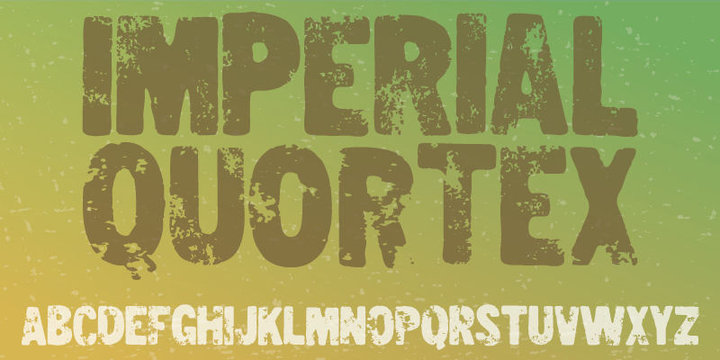
Imperial Quortex
Imperial Quortex came to life during many processes. Including a bad copymachine, a wet cloth and multiple prints and scans. The result is Imperial Quortex: a unique eroded font!
Comes with unique accented letters, alternate upper- and lowercase, smart ligatures and alternate letters.